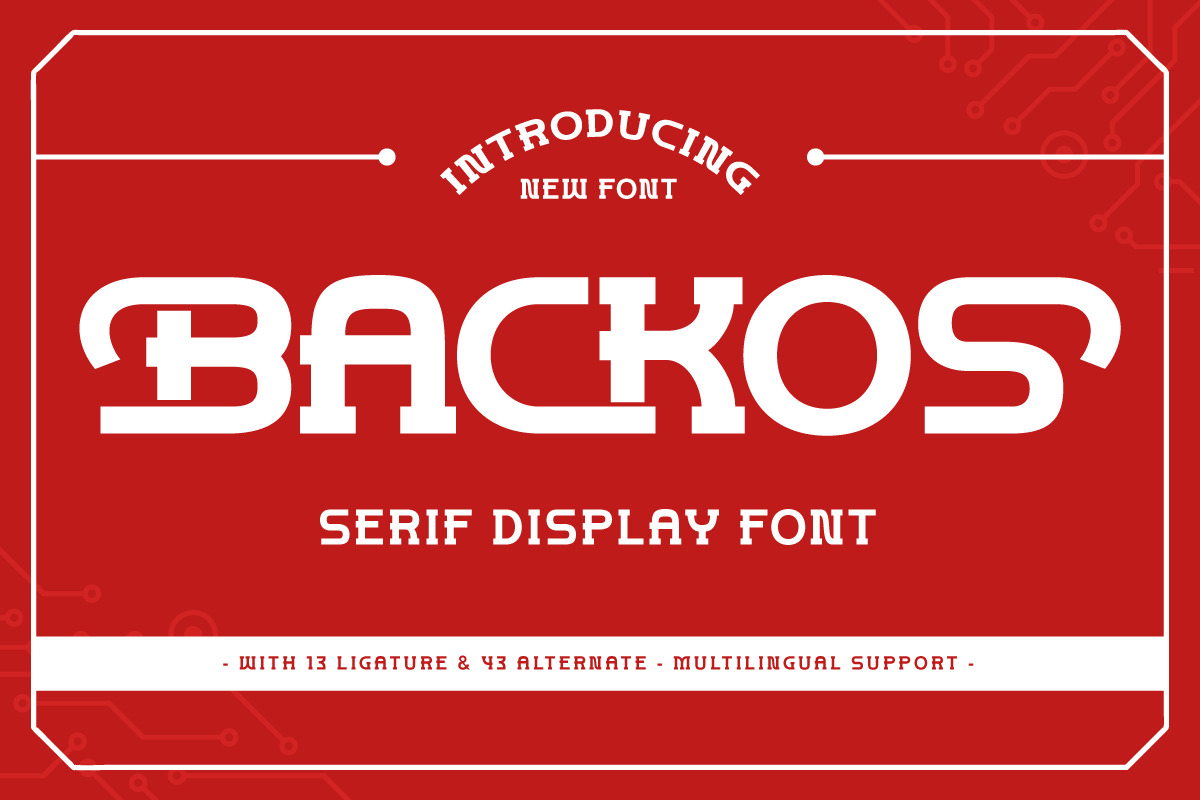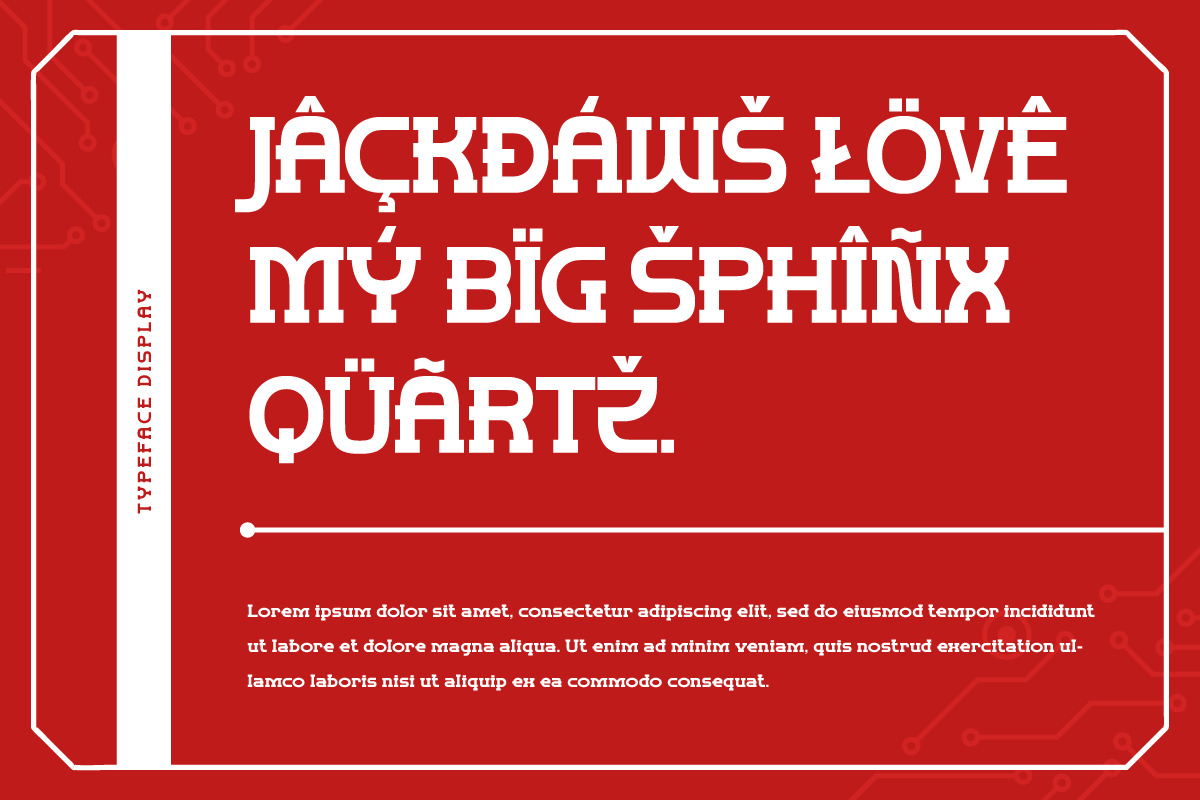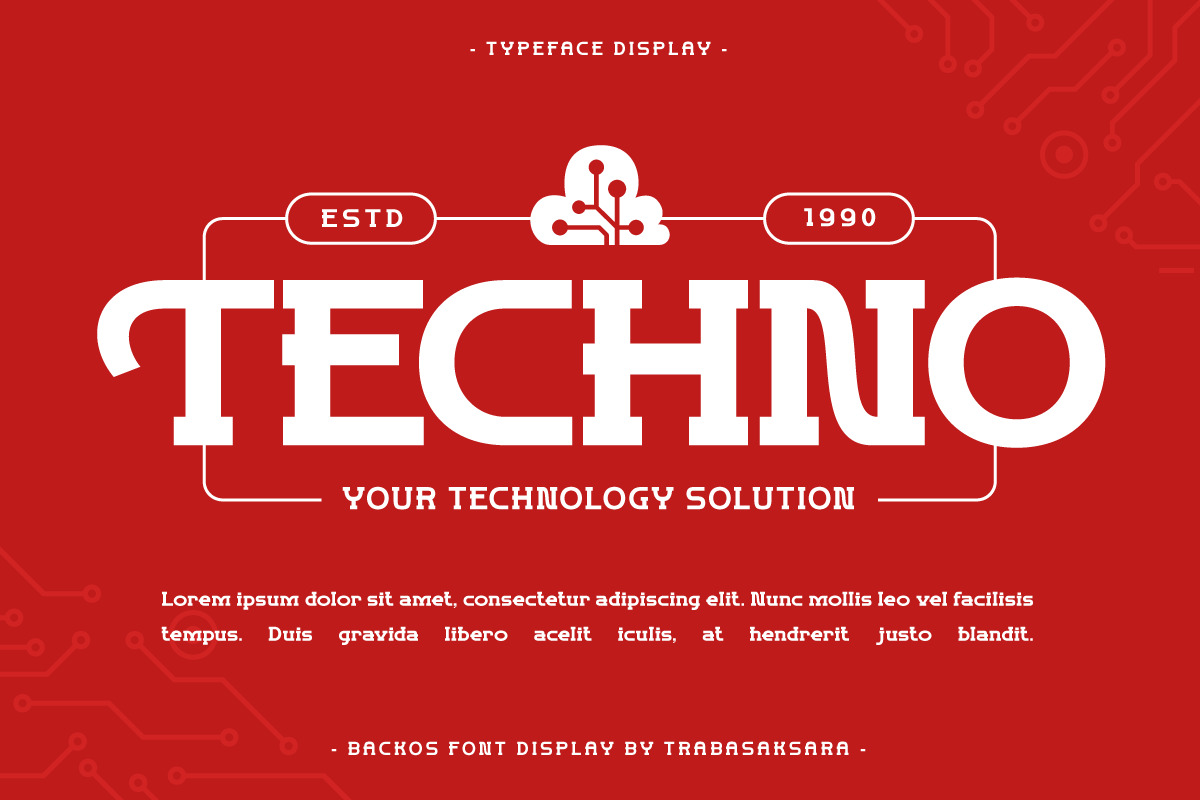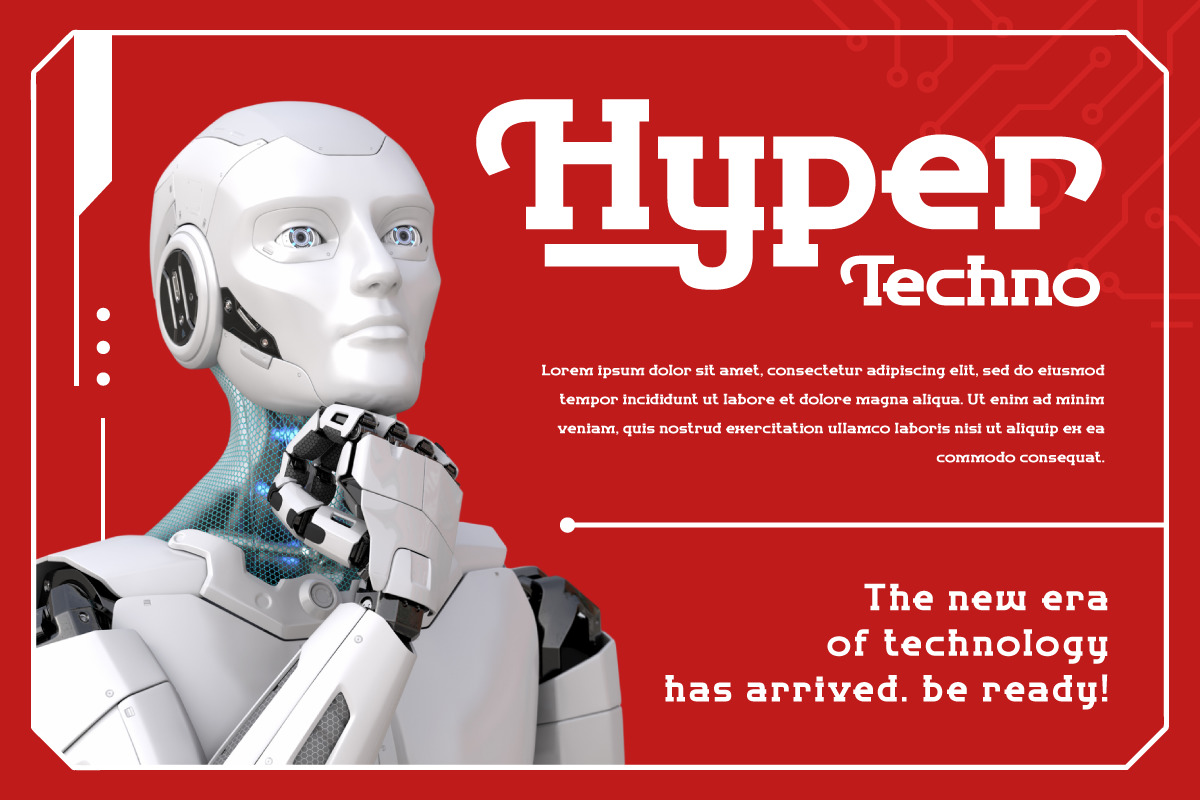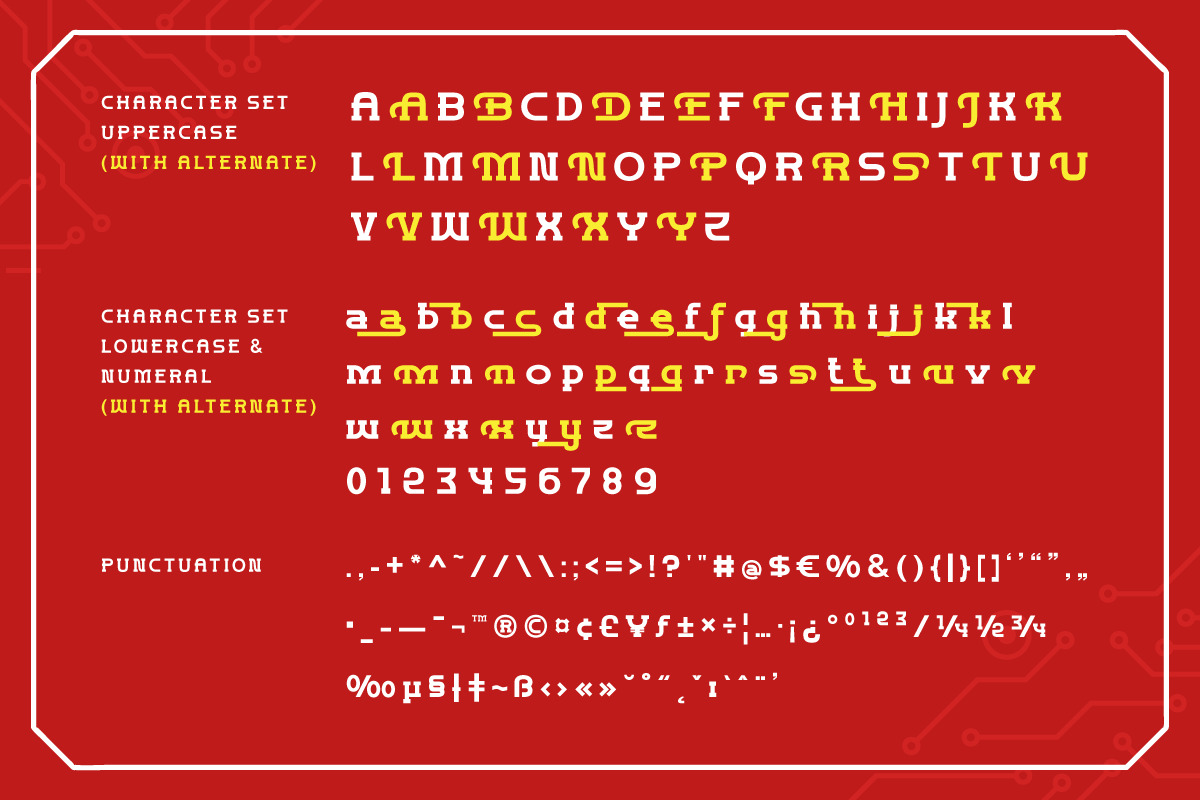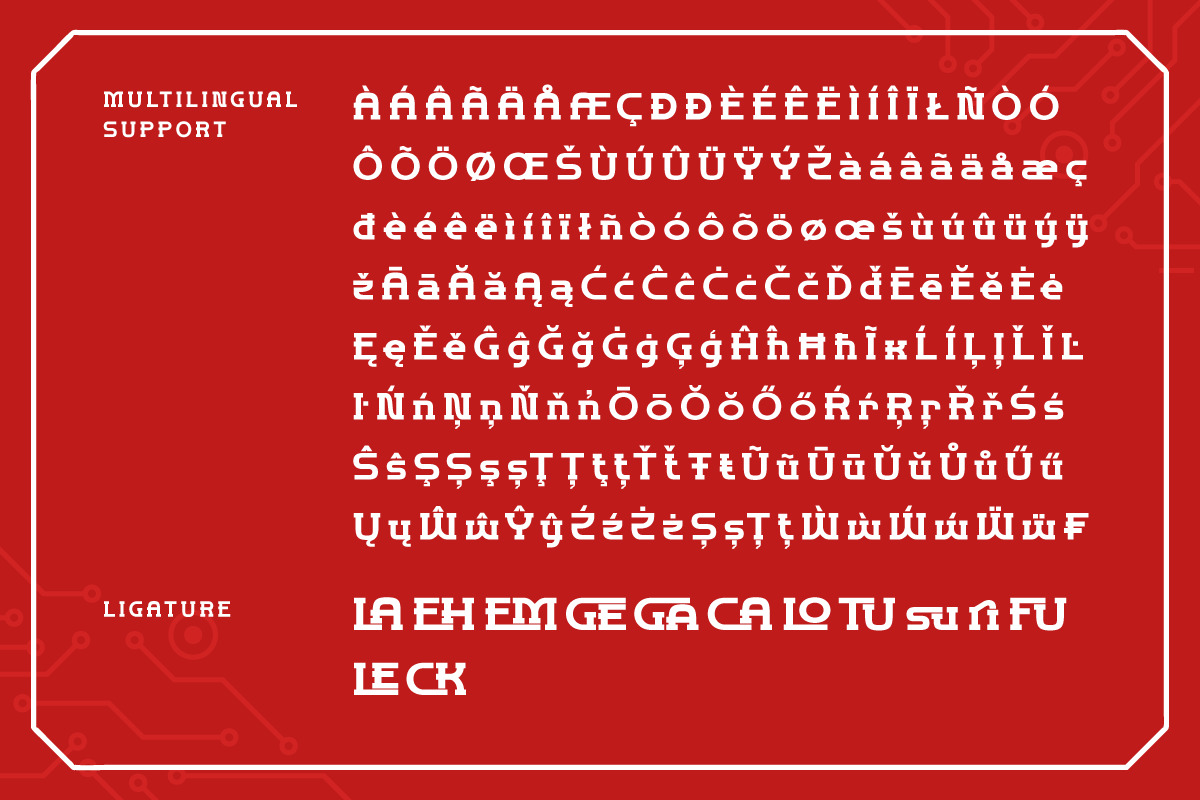
Backos - Serif Display Font
Introducing Backos Font, a bold and captivating typeface that will instantly grab the attention of your audience. With its strong and distinctive letterforms, Backos Font is the perfect choice for those seeking a powerful and impactful typography solution.
Backos Font features sleek and modern design elements that exude confidence and strength. Its sharp edges and unique character shapes make it suitable for a wide range of design applications, including branding, headlines, posters, and more. Whether you're creating a striking advertisement or a standout logo, Backos Font will make a lasting impression on your potential customers.
With its versatility and eye-catching appeal, Backos Font allows you to convey your message with authority and style. It's the ideal choice for individuals and businesses looking to make a bold statement and stand out from the competition.
Don't settle for ordinary fonts when you can make an impact with Backos Font. Explore its powerful features and unleash your creativity. Experience the boldness and allure of Backos Font and capture the attention of your potential customers in just 60 seconds.